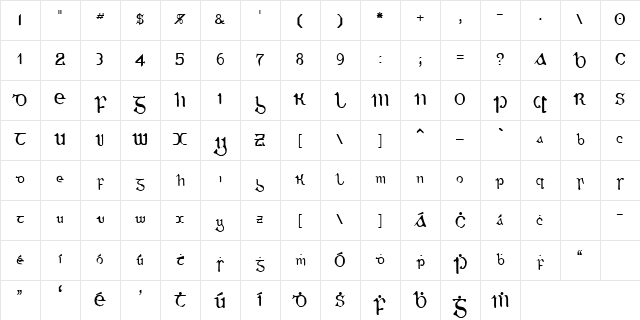
Gaeilge Regular Free Font
Gaeilge Regular
Design Context for Gaeilge
Gaeilge is a composed and adaptable typeface that performs quietly and consistently across a wide range of design contexts.